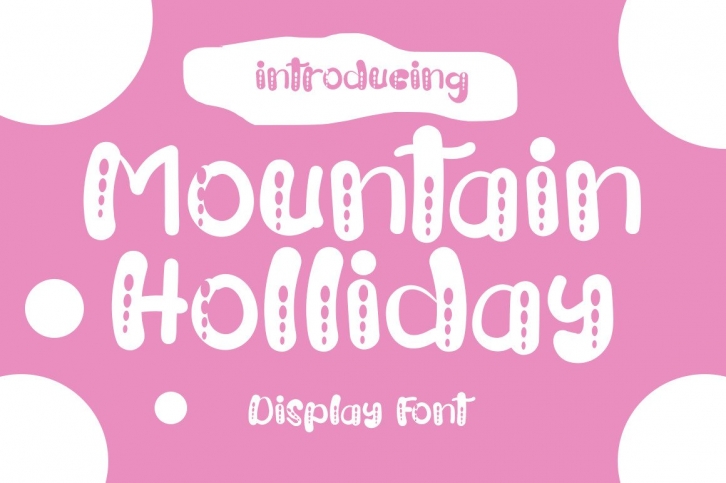
Mountain Holliday is a beautiful and sweet font. It is fresh, clean, and elegant. This font will look amazing in a great number of projects, both formal and informal. It will add an incredibly joyful touch to your designs.